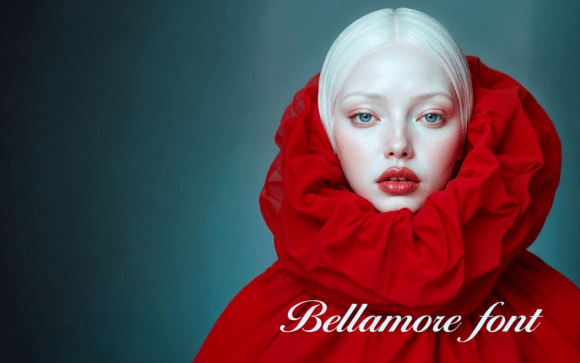
A Moment of Elegance
Imagine a creative moment where the perfect font magically appears, elevating your design from ordinary to extraordinary. It’s a moment that every designer hopes for, and with the Bellamore Font, that moment becomes a reality.
Designed to exude timeless sophistication, Bellamore is more than just a font – it’s an experience. Perfect for luxury labels, classic editorials, and brand identities that demand respect, this distinguished serif font adds character and style to every project. With its unique blend of tradition and modern refinement, Bellamore Font is the ultimate tool for designers who want to make a statement.
For designers who value elegance and refinement, the Bellamore Font is a valuable addition to any toolkit. Its versatility and sophistication make it an essential choice for any project that requires a touch of class.
Bellamore Font Key Features
- Font Family: Bellamore
- Unique Characteristics: Elegant script font with a vintage feel, ideal for wedding invitations, greeting cards, and other special occasions
Bellamore Font Review
I recently had the chance to work with the Bellamore font, and I must say it’s a beautiful addition to any design project. Here’s what I think works well:
- ✨ Elegant and refined aesthetic: Bellamore’s classic, sophisticated look makes it perfect for luxury brands, fashion labels, and high-end designs.
- ✨ Versatility: This font is incredibly versatile, suitable for both digital and print materials, from logos to magazine headlines and advertisements.
- ✨ Unique flair: Bellamore’s distinct flair sets it apart from more generic fonts, making it a great choice for designers looking to add some personality to their work.
While Bellamore is a great font, it’s not without its limitations:
- ⚠️ Limited character set: Bellamore’s character set is not as extensive as some other fonts, which may be a problem for designers working with non-Latin scripts or requiring a wide range of punctuation and special characters.
- ⚠️ May require adjustments for certain screens: Some users have reported that Bellamore may not display perfectly on all screens, particularly those with lower resolutions.
Overall, I think Bellamore is a fantastic font that’s sure to elevate any design project. While it may have some limitations, its unique style and versatility make it well worth considering for designers looking to add some sophistication to their work.
Tips for Getting the Most Out of Bellamore
Use Bellamore for:
- Editorial and magazine layouts
Remember to experiment with different font sizes, colors, and styles to achieve the desired effect.
Alternative Fonts to Bellamore Font
Playfair Display is an elegant and luxurious serif font ideal for high-end branding, invitations, and luxury packaging. Its intricate details and ornate flourishes evoke a sense of sophistication and refinement. Use Playfair Display when you want to convey luxury, elegance, and high-end quality. Compared to Bellamore Font, Playfair Display is more ornate and formal, making it suitable for applications where you need to make a statement.
Carolyna Pro is a modern and elegant serif font that combines classic and contemporary elements. Its clean lines, geometric shapes, and subtle flair make it perfect for high-end branding, packaging, and editorial design. Use Carolyna Pro when you want to convey sophistication, elegance, and a touch of whimsy. Compared to Bellamore Font, Carolyna Pro is more modern and versatile, making it suitable for a wide range of design applications.
Great Vibes is a beautiful and elegant script font that exudes a sense of romance and sophistication. Its flowing lines, connected letters, and subtle flair make it perfect for wedding invitations, branding, and packaging. Use Great Vibes when you want to convey elegance, romance, and a touch of whimsy. Compared to Bellamore Font, Great Vibes is more fluid and expressive, making it suitable for applications where you need to convey emotion and personality.
Is the Bellamore Font optimized for digital use?
Yes, the Bellamore Font is optimized for digital use, including web, mobile, and print applications. The font is designed to be legible at various screen resolutions and font sizes, ensuring a clear and consistent reading experience across different devices and platforms.